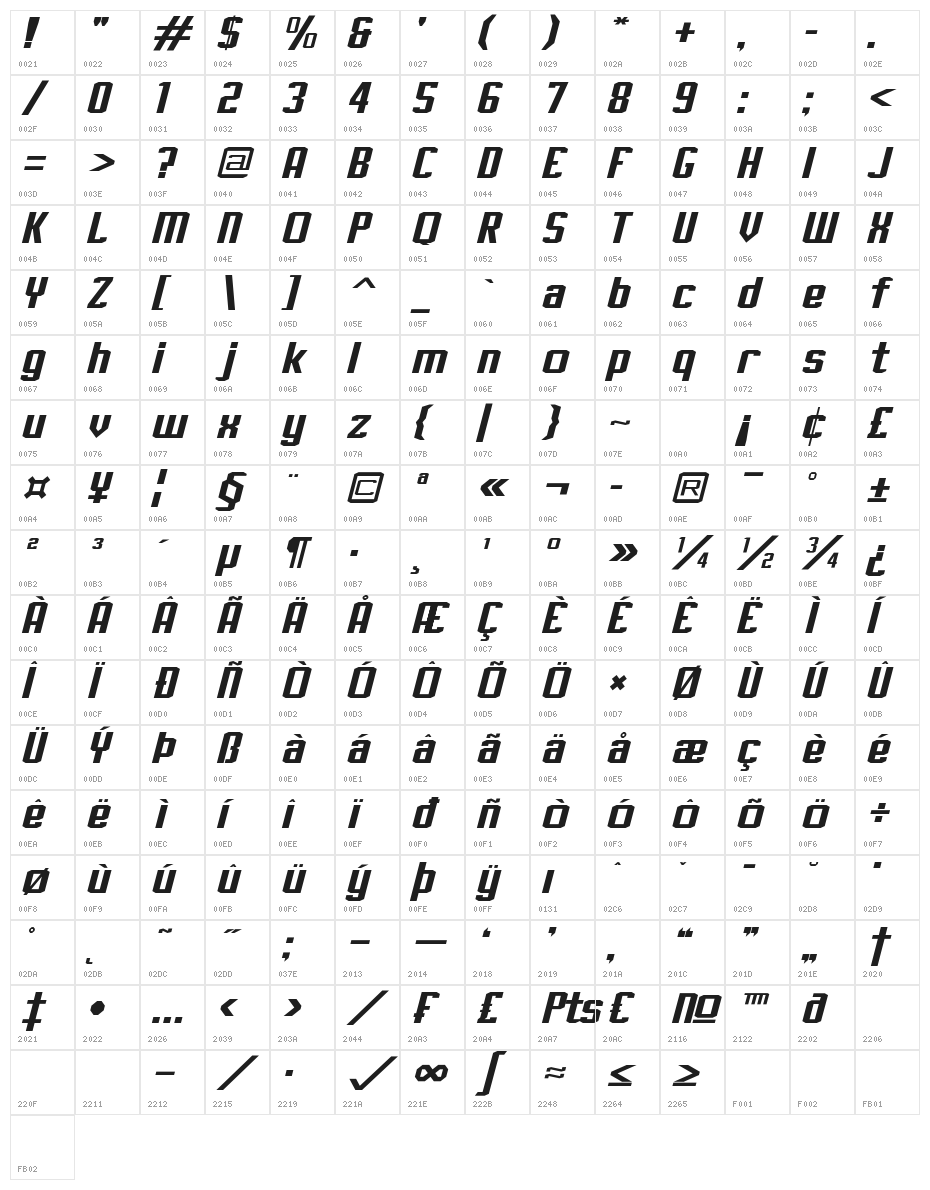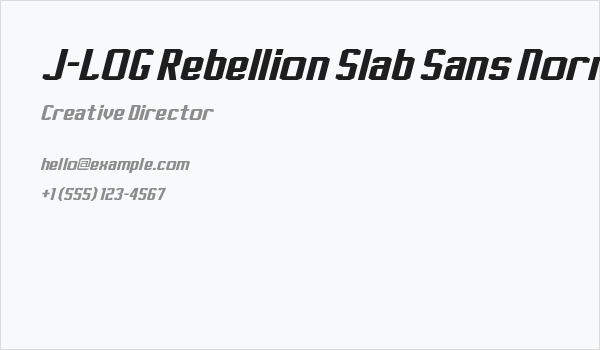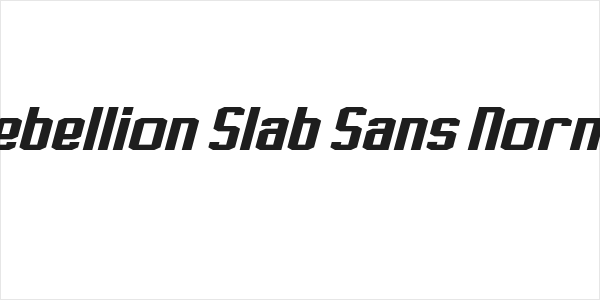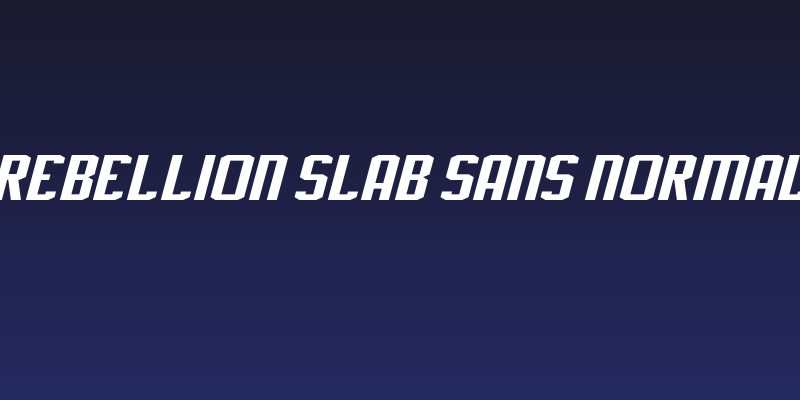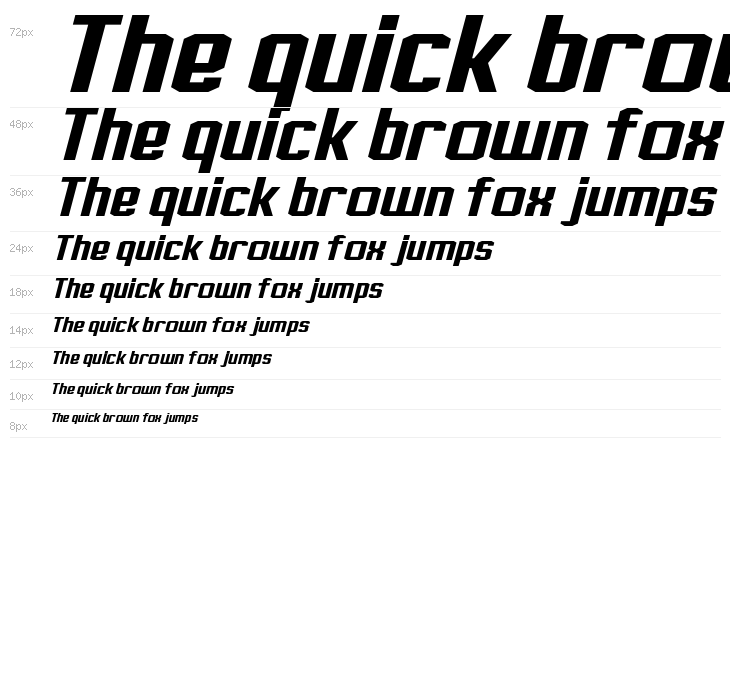
J-LOG Rebellion Slab Sans Normal Italic Font
J-LOG Rebellion Slab Sans Normal Italic Description
| Proposed Projects | Ideal for branding, posters, headlines, and any design requiring a strong, modern aesthetic. |